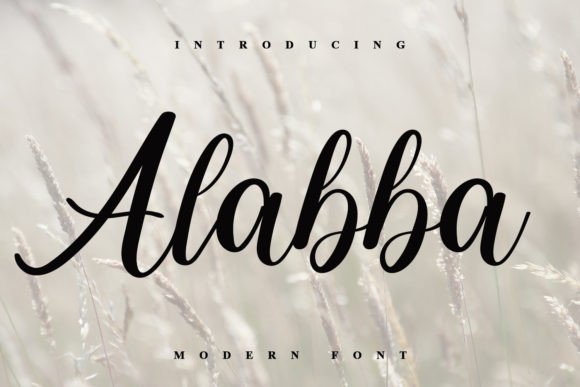
Introduction to Alabba Font
Alabba is a fresh and beautiful handwritten font, good for your design purposes such as banners, mockups, logos, covers, wedding invitations, cards, flyers, and crafts.